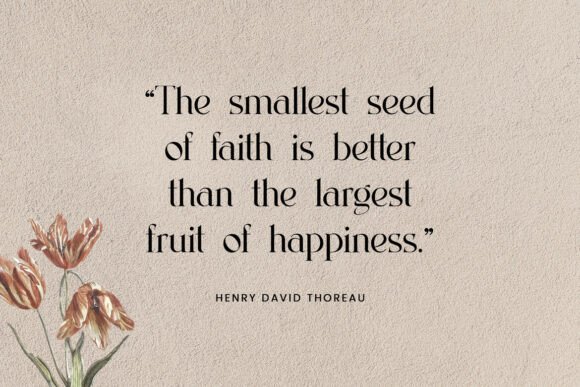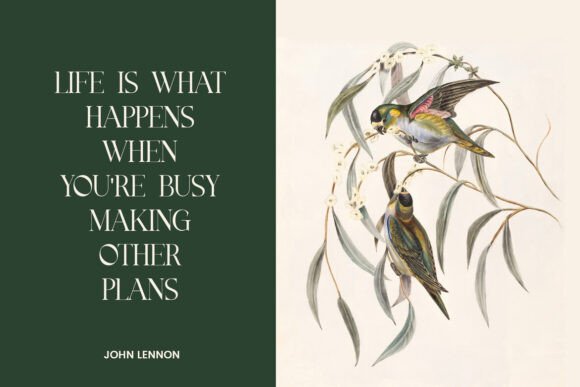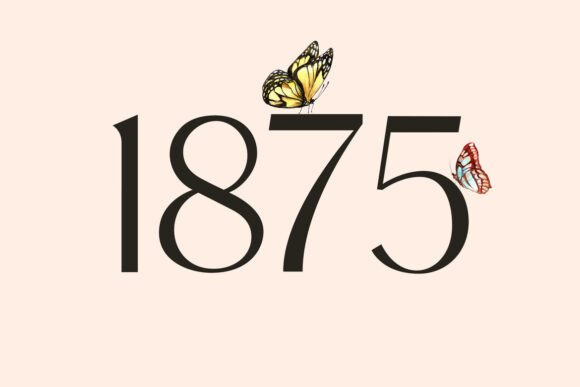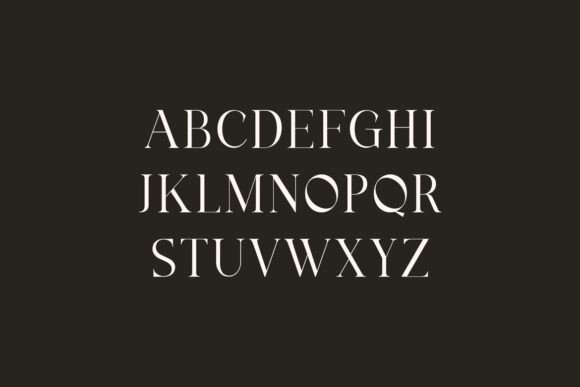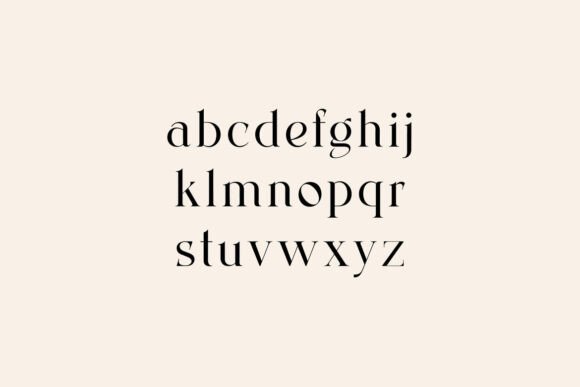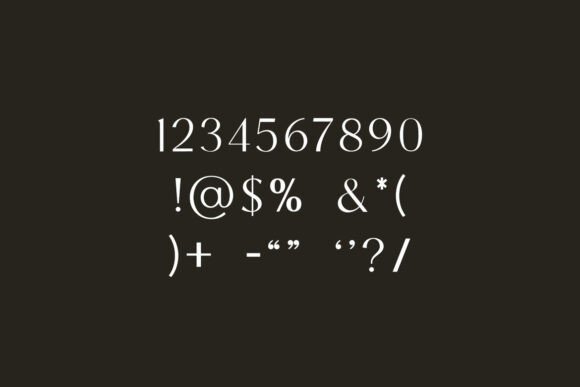
The Glamorise Font: Elevate Your Designs with Elegance and Style
I’ll never forget the time I was working on a wedding invitation project, and my client asked for a font that exuded elegance and sophistication. I scoured the internet, trying out font after font, but nothing seemed quite right. That was until I stumbled upon the Glamorise font. ✨ With its modern, classy, and stylish vibe, it was love at first sight! In this article, I’ll share my experience with the Glamorise font, its features, and how to make the most of it in your designs.
A Comprehensive Review of Glamorise
- ✨ Elegant and sophisticated design: Glamorise is perfect for projects that require a touch of luxury and refinement.
- ✅ Versatility: This font is suitable for a wide range of projects, from signatures and stationery to logos, wedding invitations, and magazine covers.
- 💻 OpenType features: Glamorise supports OpenType features, including glyphs and stylistic alternates, making it easy to customize and adapt to your design needs.
- 📚 Multilingual support: This font is designed to work seamlessly with multiple languages, making it a great choice for global brands and projects.
While Glamorise is an excellent font, there are a few things to keep in mind: 🤔
- ⚠️ Limited use in body text: Due to its elegant and refined design, Glamorise may not be the best choice for lengthy body text. It’s better suited for headings, titles, and short paragraphs.
- ⚠️ Requires careful pairing: As with any font, pairing Glamorise with other fonts requires some care to ensure visual harmony.
Glamorise was designed with the goal of creating a font that embodies elegance, sophistication, and style. The design process involved researching classic serif fonts and incorporating modern elements to create a unique and versatile font. The result is a font that works beautifully in a variety of contexts, from fashion and beauty to luxury branding and editorial design.
Q: What type of projects is Glamorise best suited for?
A: Glamorise is an excellent choice for projects that require an elegant and sophisticated design, such as luxury branding, editorial design, and high-end fashion.
Q: Can I use Glamorise for body text?
A: While Glamorise can be used for short paragraphs, it’s not the best choice for lengthy body text. It’s better suited for headings, titles, and short paragraphs.
Q: Does Glamorise support OpenType features?
A: Yes, Glamorise supports OpenType features, including glyphs and stylistic alternates, making it easy to customize and adapt to your design needs.
Q: Is Glamorise a multilingual font?
A: Yes, Glamorise is designed to work seamlessly with multiple languages, making it a great choice for global brands and projects.